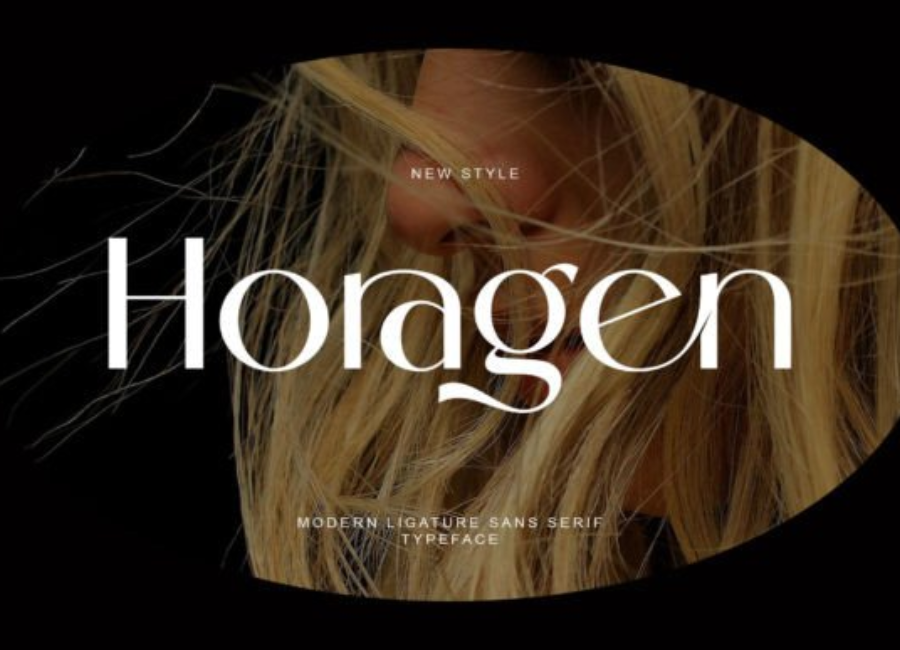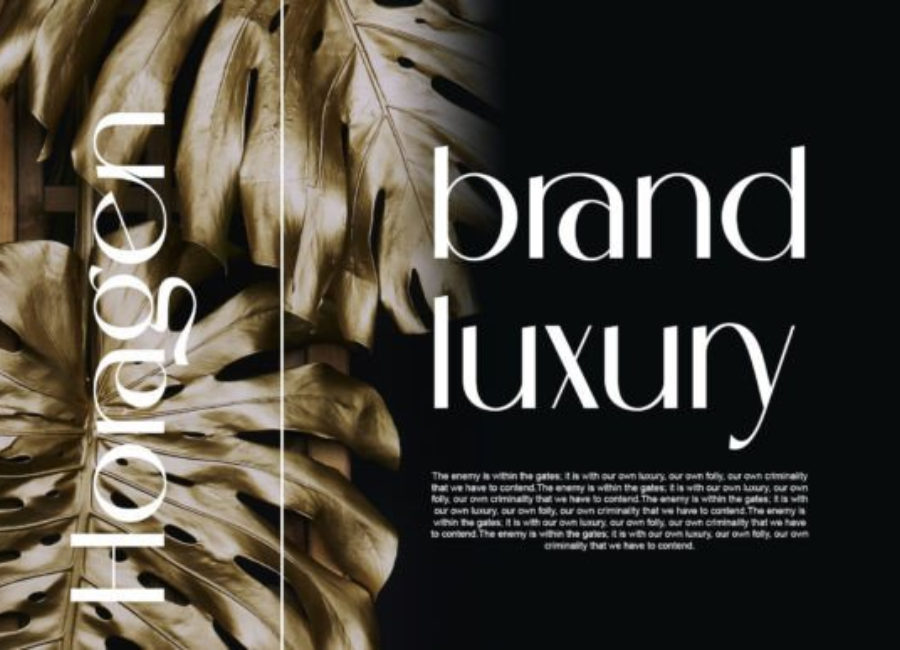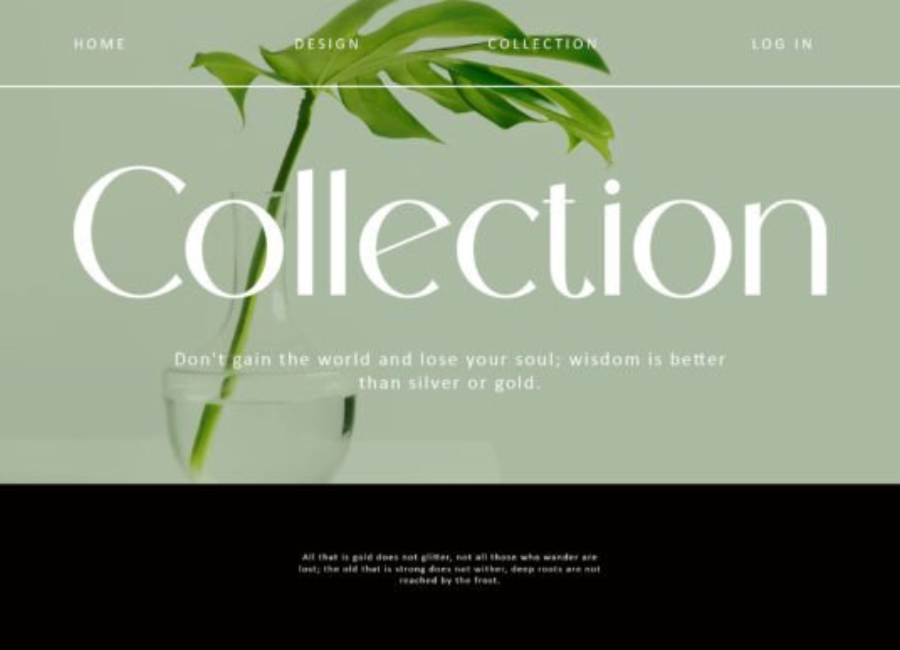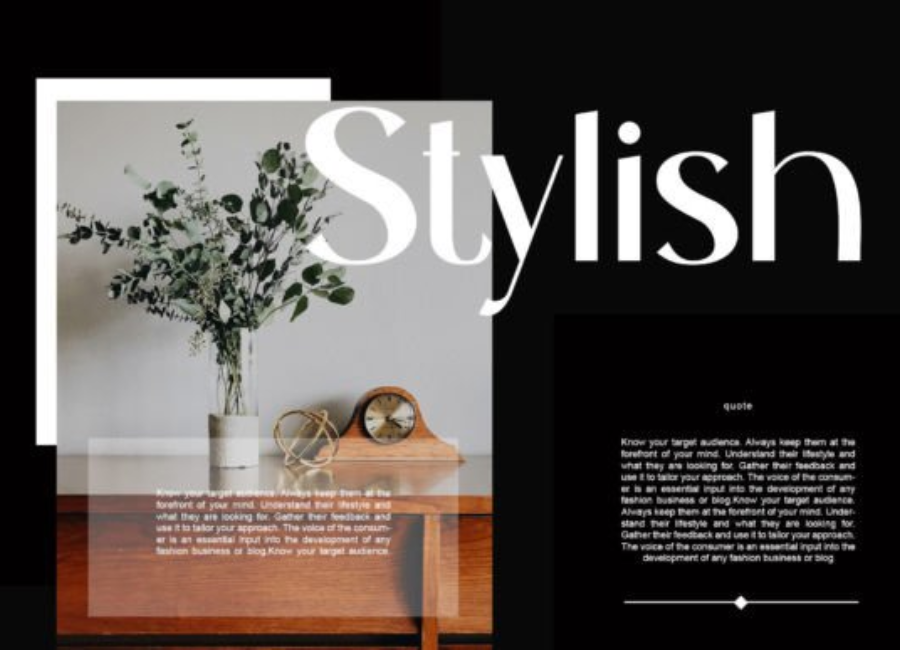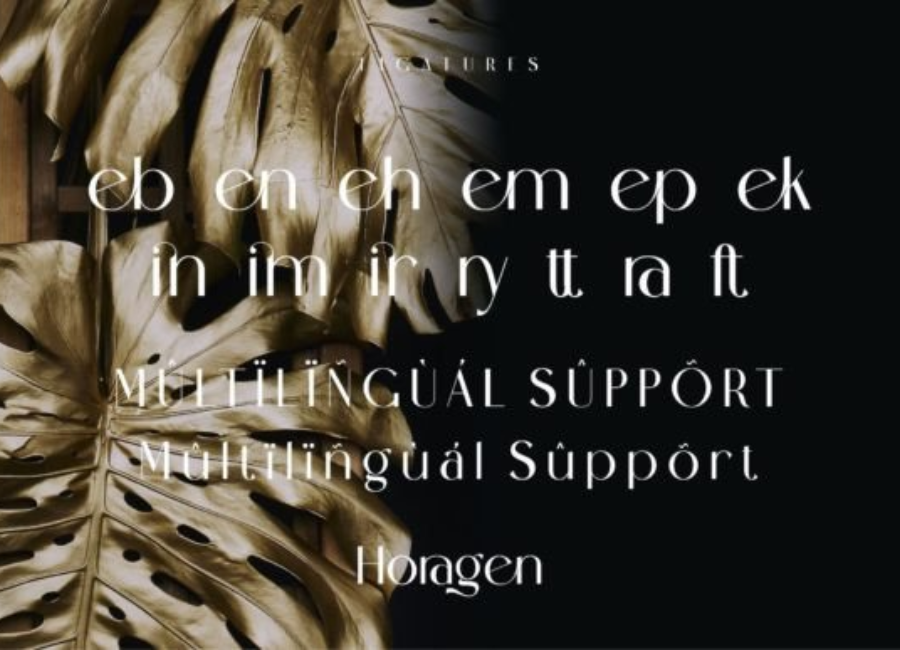
Horagen Font: A Bold Modern Typeface Crafted for Creative Expression
Typography has always played a crucial role in visual communication, shaping how audiences perceive brands, messages, and artistic compositions. Among the many fonts that have captured designers’ attention in recent years, Horagen Font has emerged as a standout choice for modern creatives who want a typeface that feels bold, expressive, and unmistakably contemporary. With its striking character shapes, geometric influences, and strong typographic presence, Horagen offers a distinctive voice suited for high-impact design projects across digital and print media.